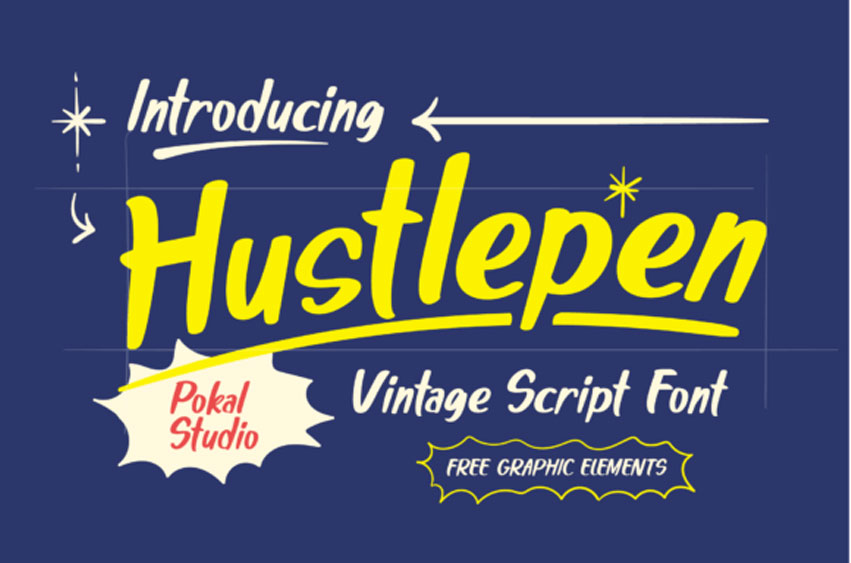
Hustlepen Font brings timeless retro charm and bold personality to your designs with Hustlepen, a hand-drawn vintage script font crafted for eye-catching headlines and authentic retro branding. With smooth, flowing strokes and playful character, Hustlepen balances nostalgic vibes with modern versatility.
Inspired by old-school diner menus, vintage ads, and market signage, this font delivers strong impact and approachable style — perfect for projects that need both boldness and friendliness.